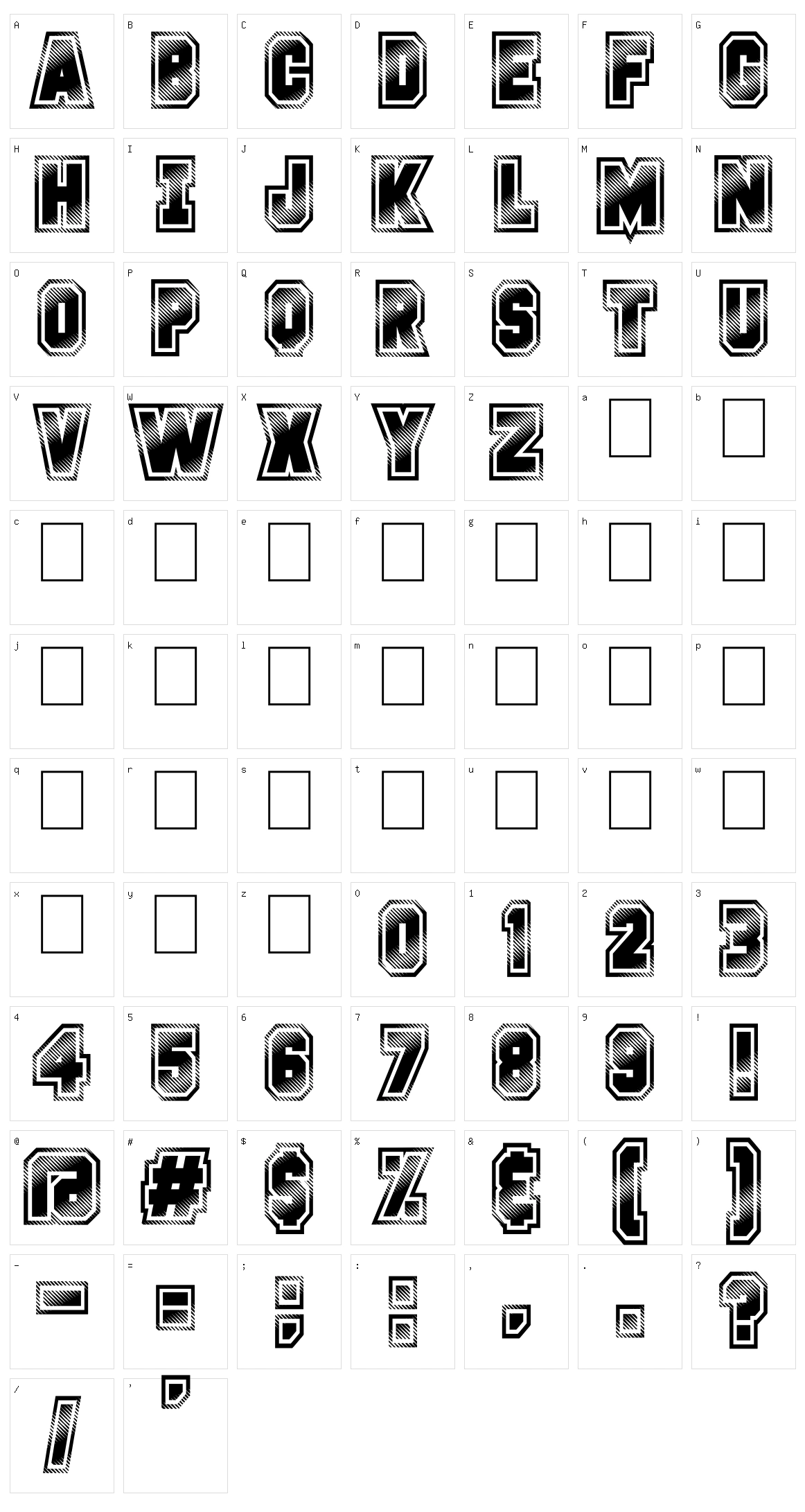
The free font Glitter Campus is carefully designed by imagex, showcasing a thoughtful balance of creativity and usability and falls under the Old School font style. When you download the ZIP file, it contains only 74.28 KB of font files, making it lightweight and quick to download. Please review the license details below to understand permitted usage and distribution rights. If license information is not available, we recommend using this font for personal projects only or contacting the author directly for commercial usage permissions.